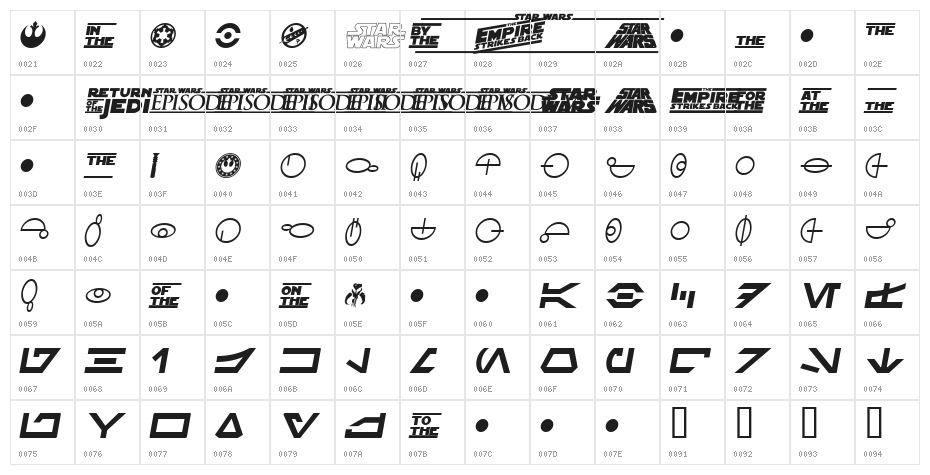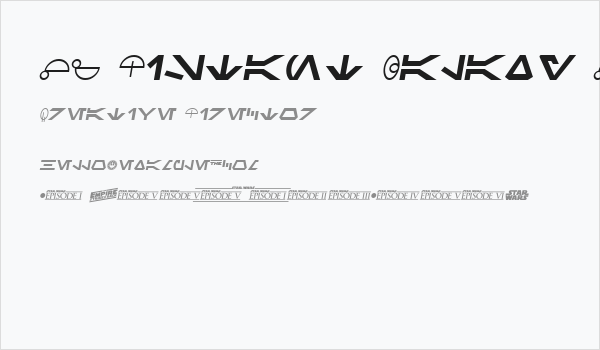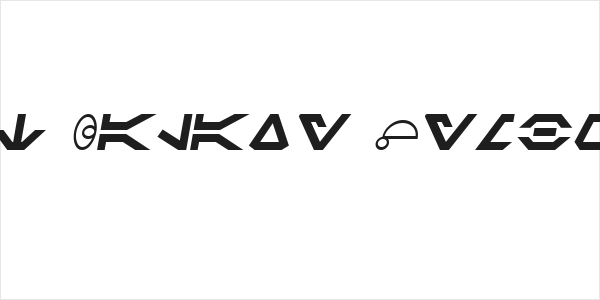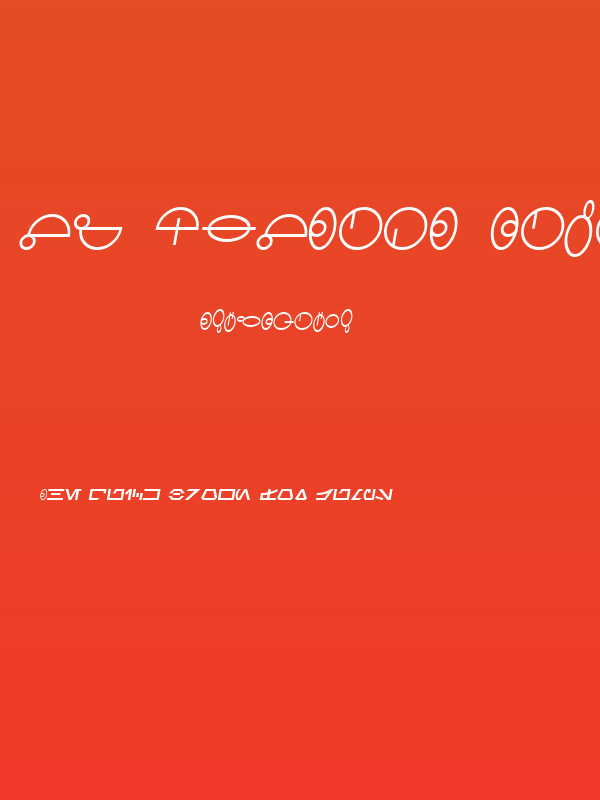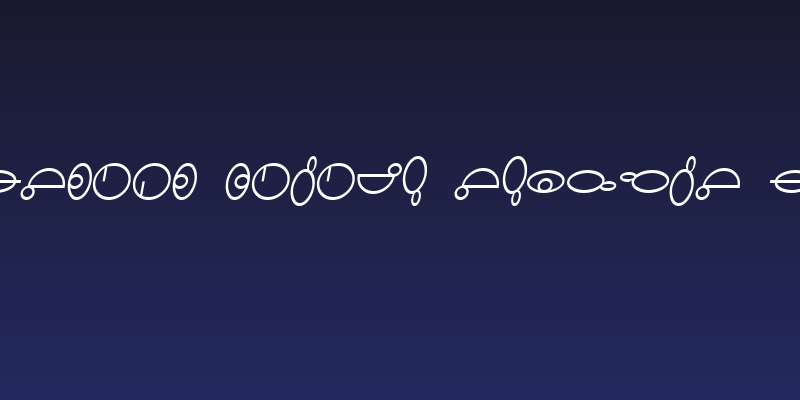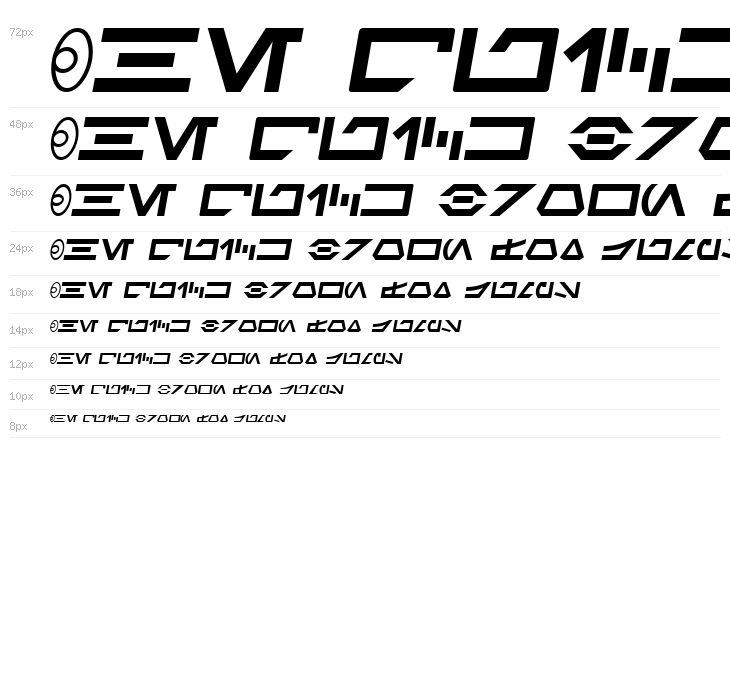
SF Distant Galaxy Symbols Italic Font
SF Distant Galaxy Symbols Italic Description
This font features a futuristic and sci-fi inspired design, reminiscent of alien or space-themed aesthetics. The characters are composed of geometric shapes, with a blend of circles, lines, and unique symbols that give it an extraterrestrial feel. The style is highly decorative, with each letterform appearing as a distinct symbol rather than traditional alphabetic characters. The font includes both uppercase and lowercase letters, numbers, and a variety of special characters, all maintaining the same thematic design. The italic style adds a dynamic and forward-leaning appearance, enhancing its modern and otherworldly vibe.
| Overall Style | Futuristic, Sci-Fi, Decorative |
| Use Case | Logos, Posters, Titles |
| Proposed Projects | Ideal for sci-fi movie posters, video game titles, themed event invitations, or any project requiring a space or futuristic aesthetic. |